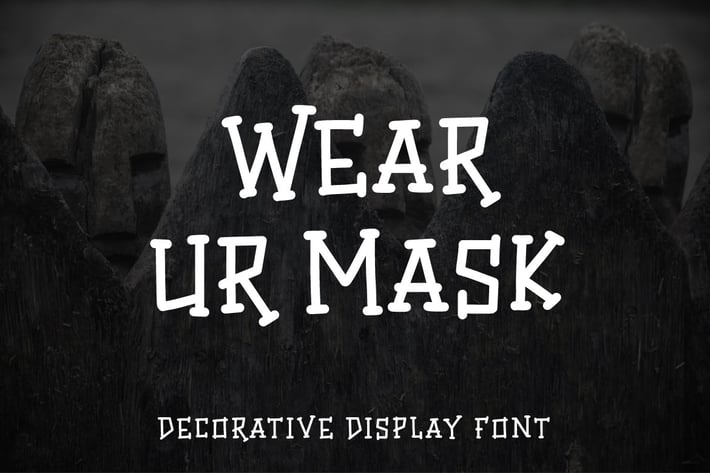
Wear Ur Mask - Decorative Halloween Display Font
Hello! Wear Ur Mask is a halloween display font.
Wear Ur Mask can be used in any works such as comic book, poster, school, flyer, book title, advertisement, social media content, logo and many more.